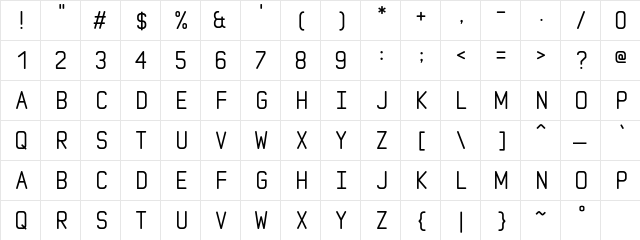
MoonGloss Display Medium Medium
Design Context for MoonGloss Display Medium Typeface
MoonGloss Display Medium is built around its visual character rather than neutral utility — its distinctive forms are designed to make an impression at display sizes.
Font Pairing: Pair with a clean neutral sans-serif for body copy to let MoonGloss Display Medium's character lead without overwhelming the composition.
Pro Tip: Use MoonGloss Display Medium exclusively at display sizes — it was designed to be seen, not read at length. Let a neutral companion handle body copy.